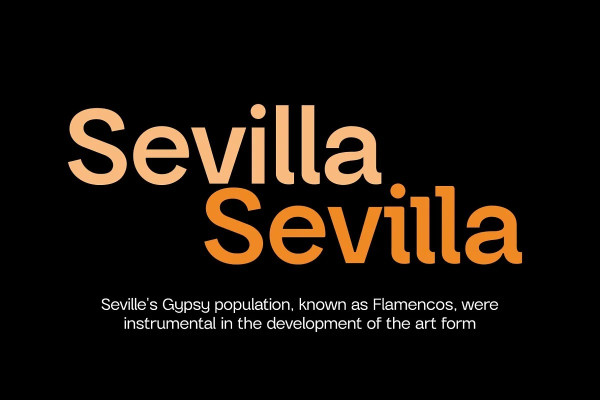
Gradus Font
Gradus Font, is a multi-purpose typeface designed to properly mix elegance and rhythm. The balance between modern and sophisticated touches and styles can achieve the effect of harmonizing well with any device and channel. The hardness of the rigid stem of the grotesque typeface is transformed into a soft touch that organically matches words and sentences.